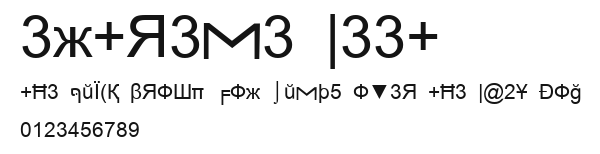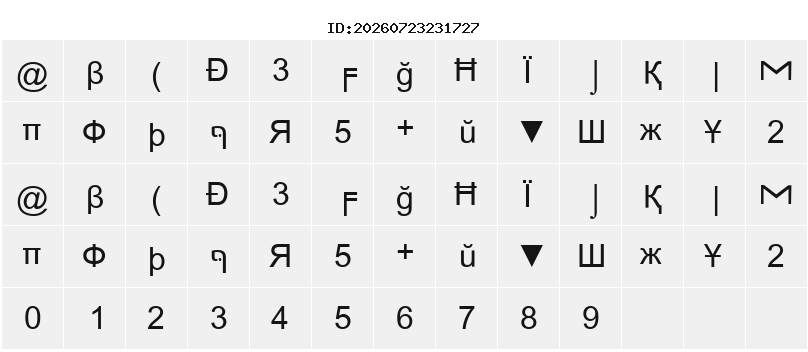
Extreme Leet Preview
About Extreme Leet.ttf
Extreme Leet.ttf is a modern, elegant sans-serif font designed for ultimate readability and visual harmony. Perfect for branding, headlines, web design, and print materials.